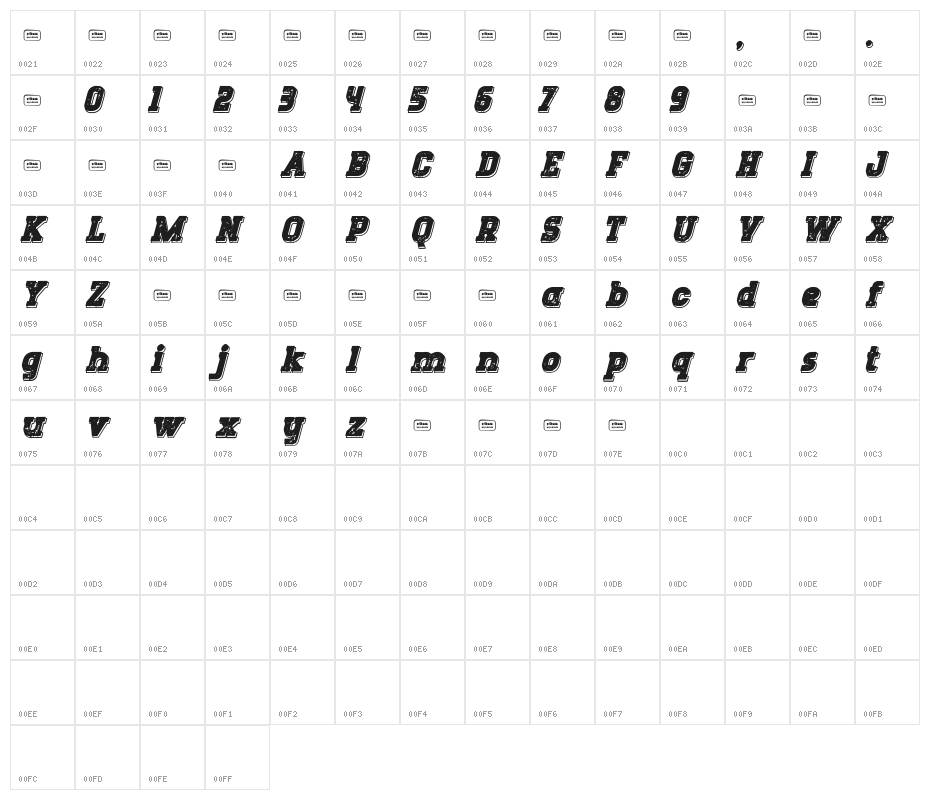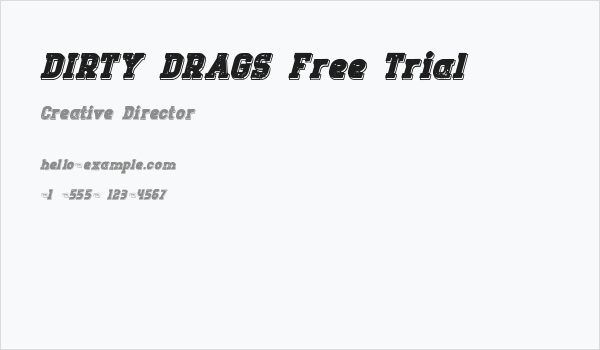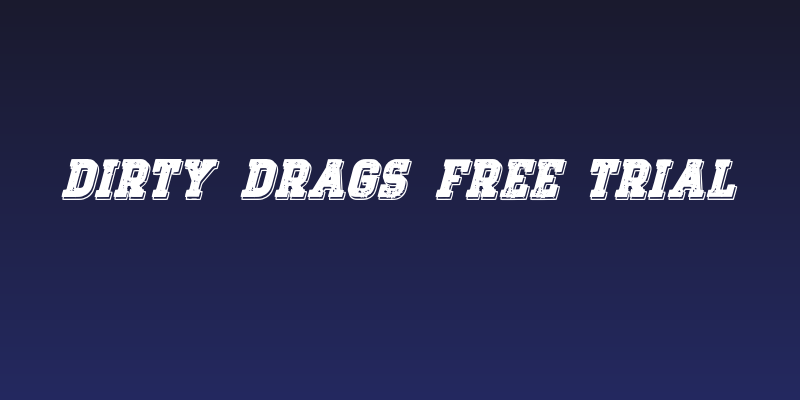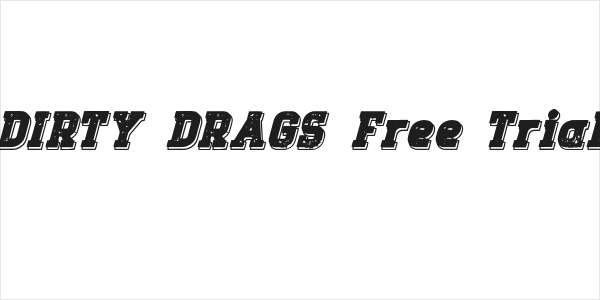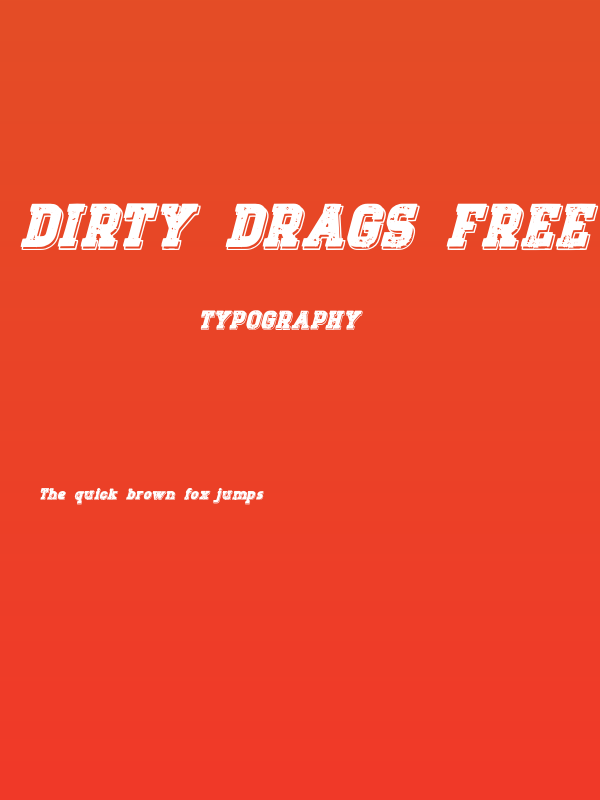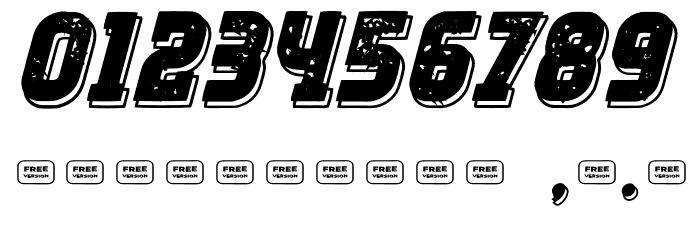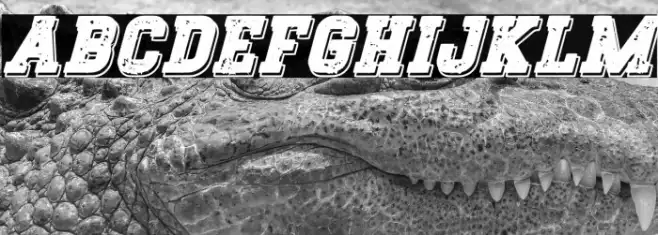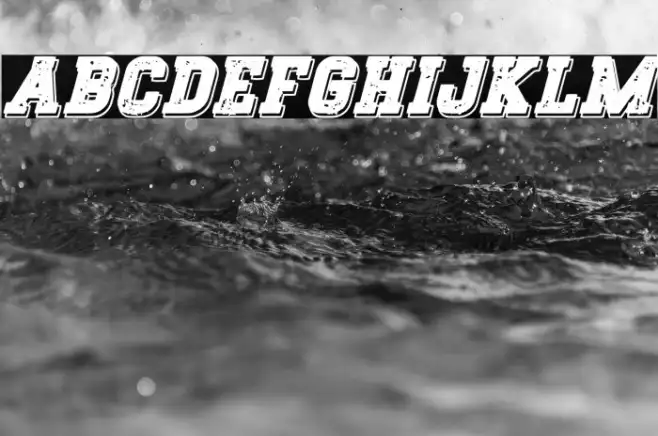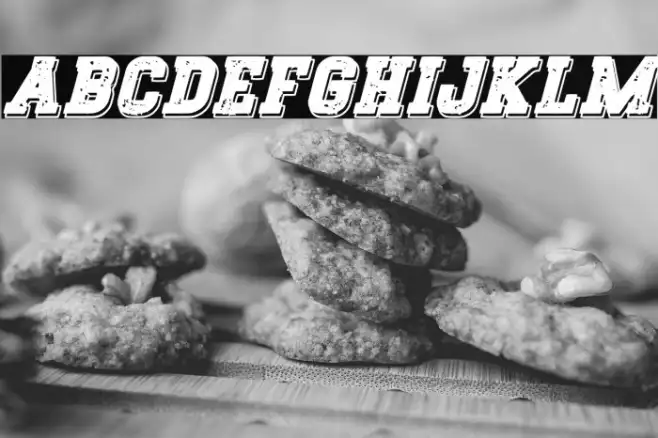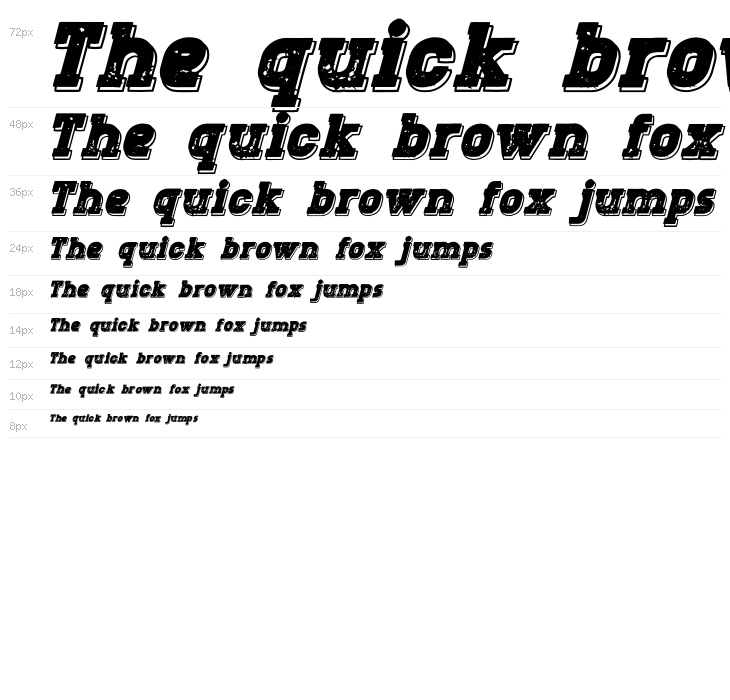
DIRTY DRAGS Free Trial Font
This font features a bold, distressed style with a textured appearance that gives it a rugged, vintage feel. The uppercase and lowercase letters are designed with a strong presence, making them ideal for impactful headlines. The numbers and special characters maintain the same distressed look, ensuring consistency across all text elements. The font's bold weight and decorative style make it stand out, while the slightly condensed width allows for efficient use of space. The character spacing is normal, providing a balanced look that is neither too tight nor too wide. The high contrast in stroke thickness adds to its dynamic appearance, making it suitable for projects that require a strong visual impact.
| Proposed Projects | Ideal for vintage-themed posters, logos, apparel designs, and branding materials that require a bold, eye-catching look. |